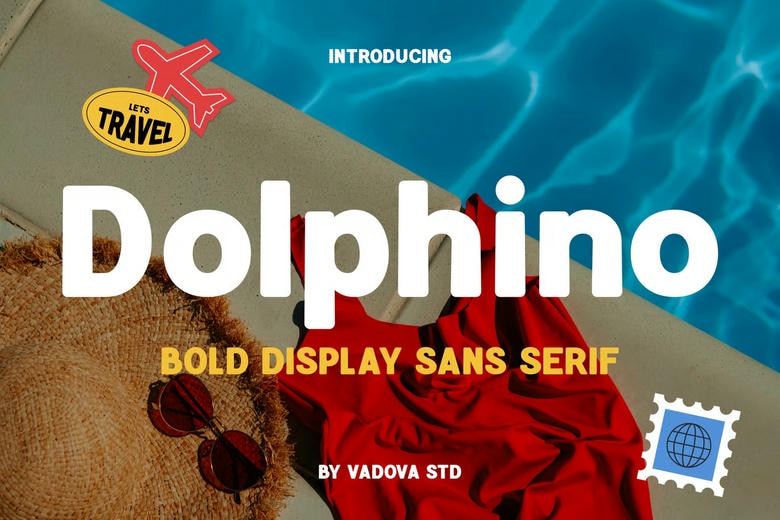
Dolphino Font
Dolphino Bold Display Sans Serif is the anti-vacation bold display typeface that unfolds some ideas about summer holidays, seaside mood, and travel. Dolphino has weight, rounded shapes, and beautiful sanitized fonts that can be used to give the visual bomb and determinedness.
This typeface is ideal when it comes to travel posters, beach branding, summer packs, postcards, pool parties invites, and adventure content advertising. Prepared to work on digital and print projects that desire to be unique.